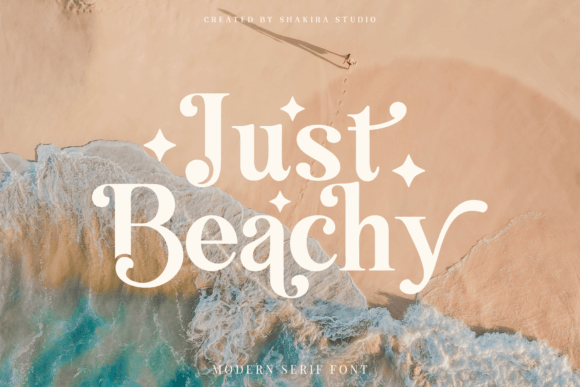
Introducing Just Beachy Font, the ultimate choice for those seeking the best font for cover pages. Created by the talented artists at Shakira Studio, this modern serif font brings a touch of elegance and vintage charm to your designs. With its bold and captivating style, Just Beachy is here to elevate your projects and leave a lasting impression.
When it comes to creating eye-catching headlines and designs, Just Beachy Font is your go-to companion. Its contrasting lines and beautifully curved terminals add a sleek and sophisticated touch to any piece of artwork. Whether you're designing logos, holiday cards, wedding invitations, quotes, or advertisements, this font will effortlessly captivate your audience.
Imagine the power of a font that effortlessly combines modern aesthetics with a timeless vintage flair. Just Beachy Font does just that. Its versatility allows it to adapt to various themes and styles, making it suitable for both contemporary and classic designs. With Just Beachy, you can effortlessly create designs that stand out from the crowd and make a statement.
But what truly sets Just Beachy Font apart is its ability to evoke emotions. The moment you lay eyes on this font, you'll be transported to the golden era of typography, where elegance and beauty reigned supreme. Its graceful curves and distinct character make every letter a work of art, evoking feelings of nostalgia, warmth, and sophistication.
In addition to its aesthetic appeal, Just Beachy Font is also packed with functionality. Its legibility ensures your message is delivered clearly and effectively, even at smaller sizes. Its versatility shines through, allowing you to experiment with different styles, weights, and layouts, giving you the freedom to unleash your creativity and create designs that are truly unique.